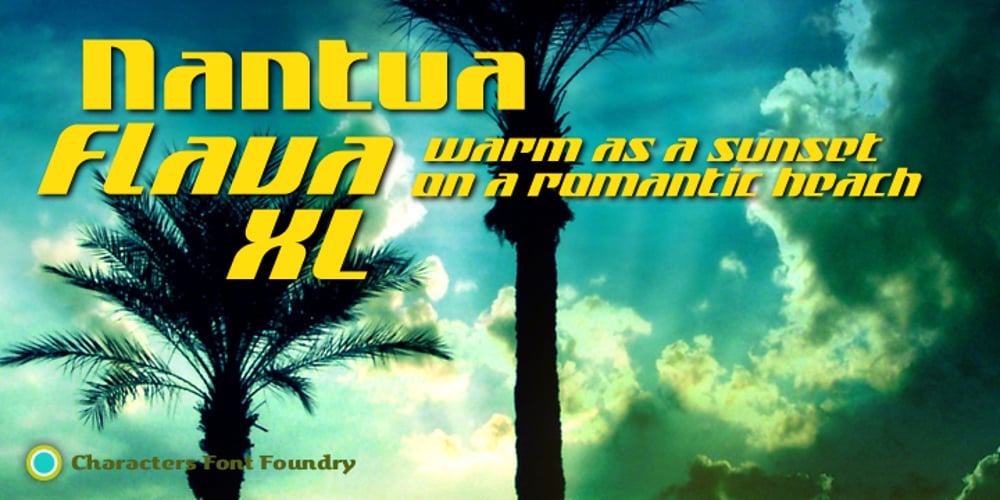
Nantua Flava Font Family was designed by René Verkaart and published by Characters Font Foundry. Nantua Flava contains 2 styles and family package options. Nantua Flava XL is a display font by heart. It’s preferably seen on posters or flyers. It’s inspired by the Op Art style of lettering in the USA from the 1960s and 70s. But it holds also very futuristic elements so it work very well on futuristic techno party flyers and posters. Nantua Flava XLi speeds up your design. It’s powerful as a Ferrari engine, strong as a steam locomotive. The very close innerforms and low contract make it perfectly suited for background patterns as well as big headline texts. The stiff little brother of this is simply called Nantua. They are a happy family.